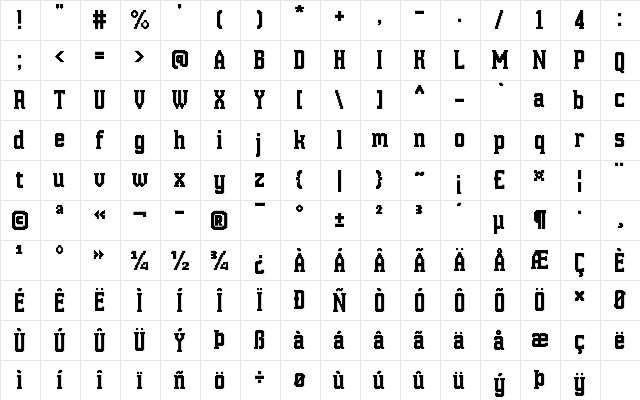
Hannover Messe Serif Regular
Design Context for Hannover Messe Serif Typeface
Hannover Messe Serif brings classic typographic sensibility to the table — its serifs and measured letterforms reflect centuries of print heritage.
Pro Tip: Set Hannover Messe Serif with slightly loose tracking in headlines to let each letterform's detail read clearly at display sizes.